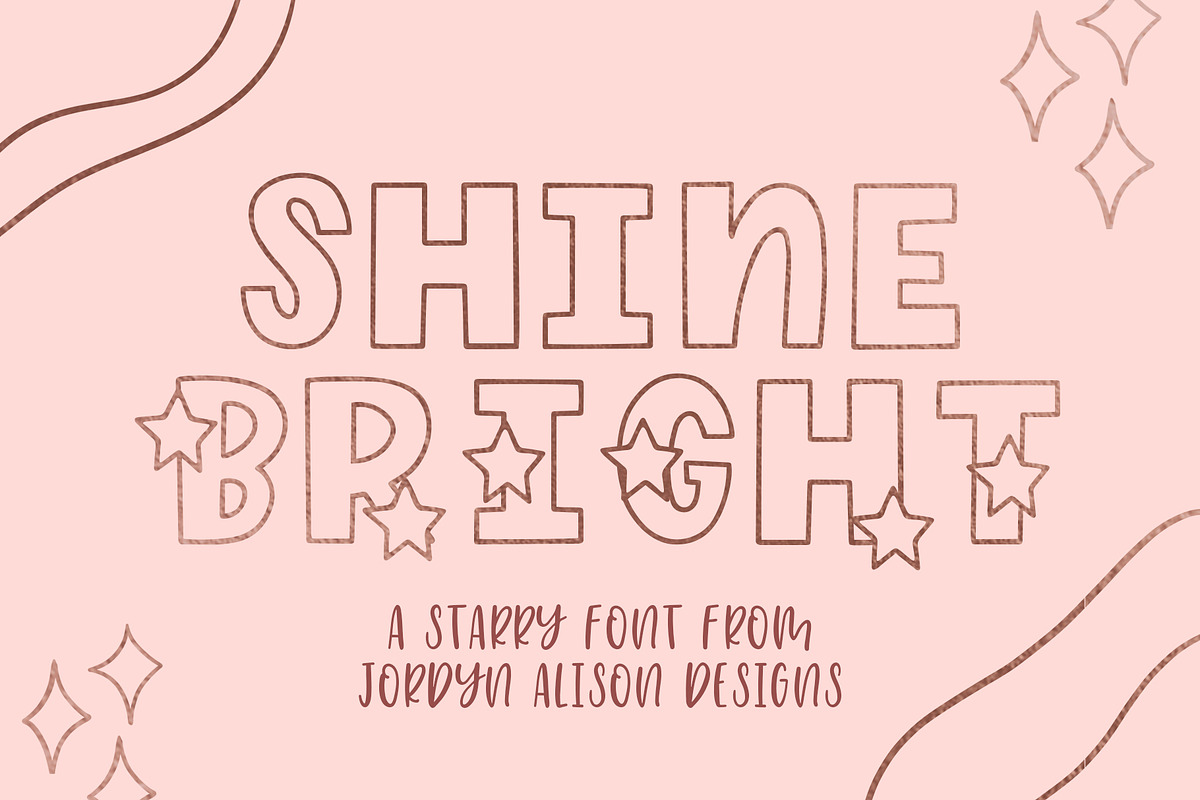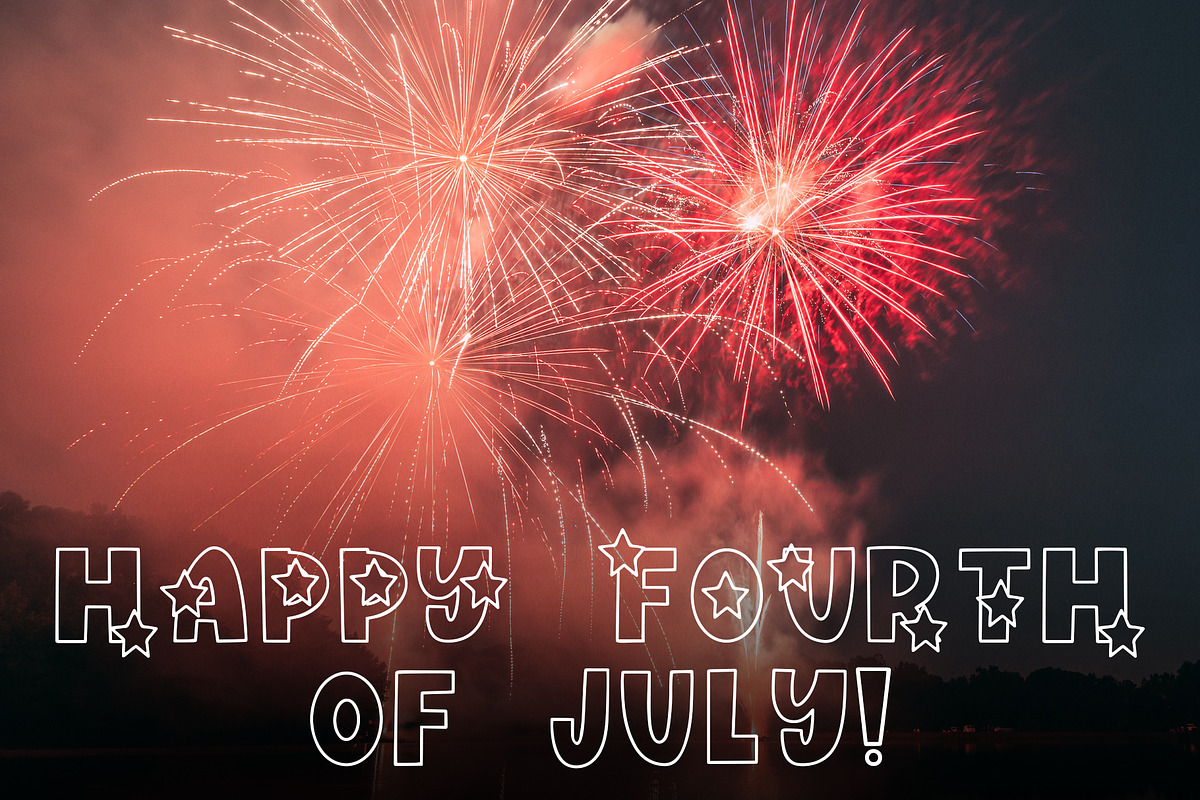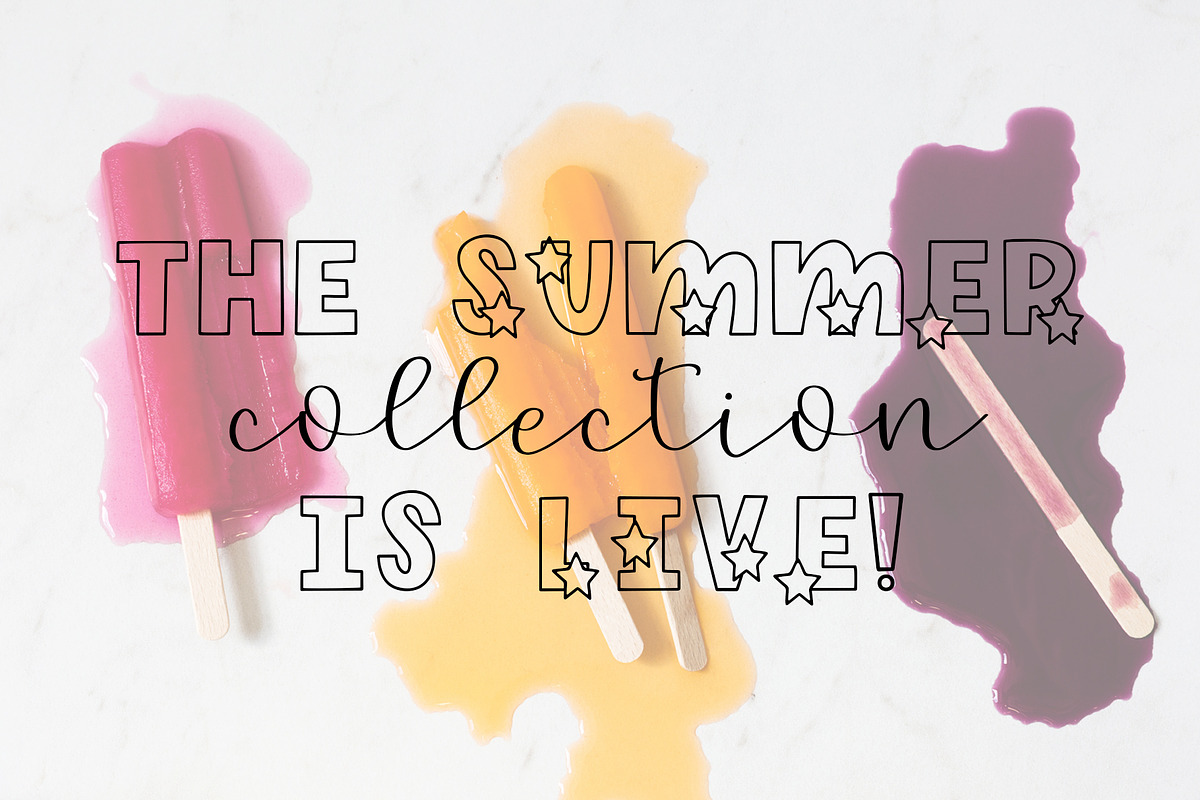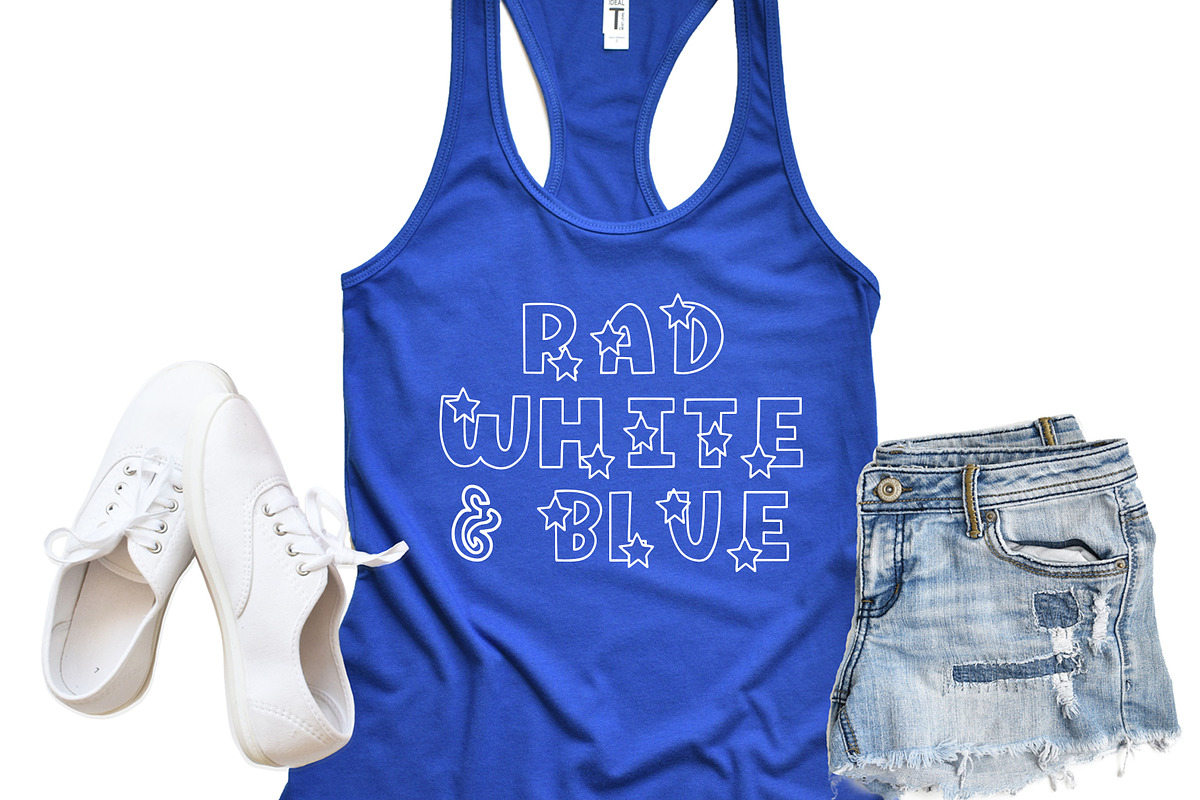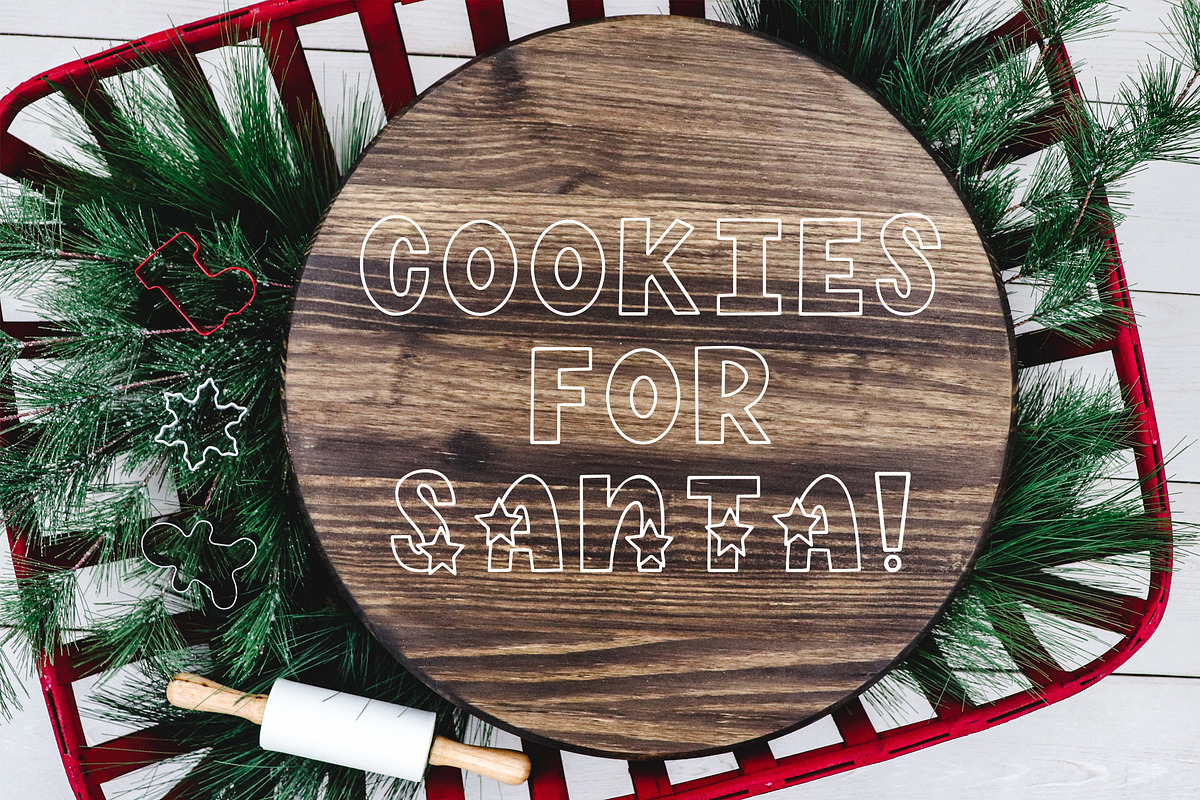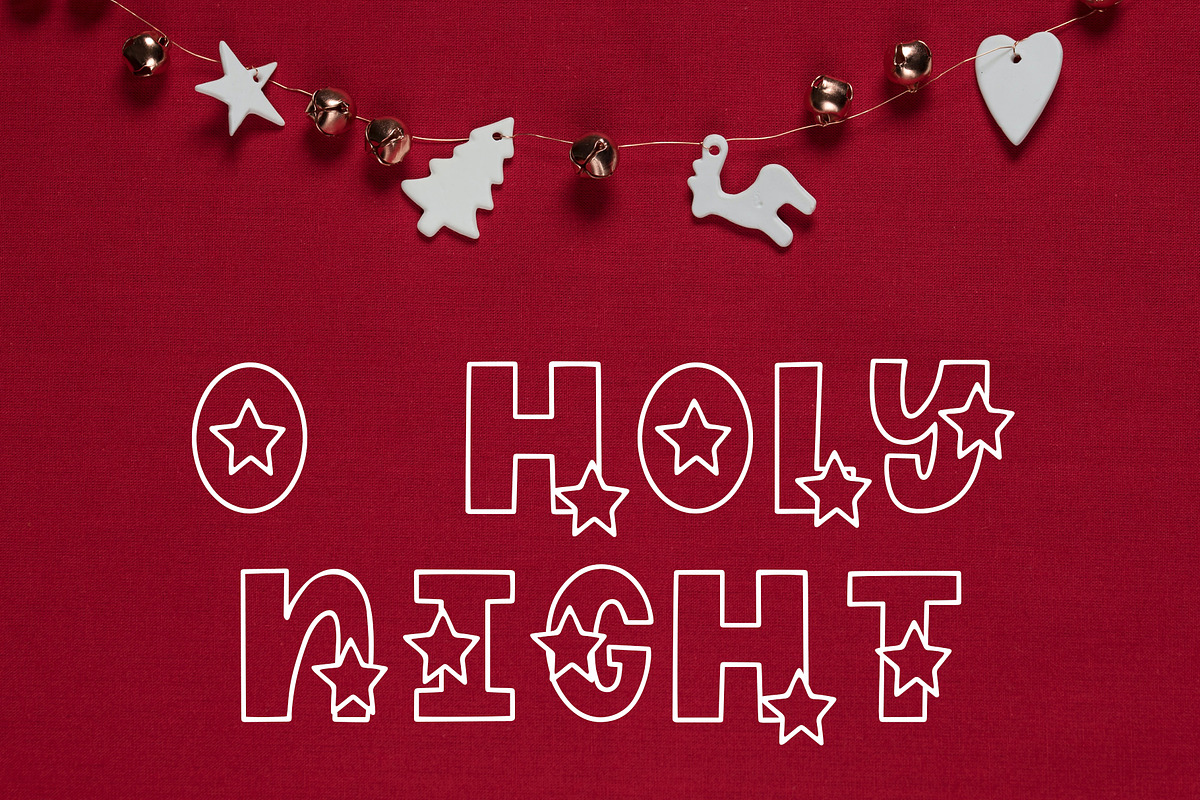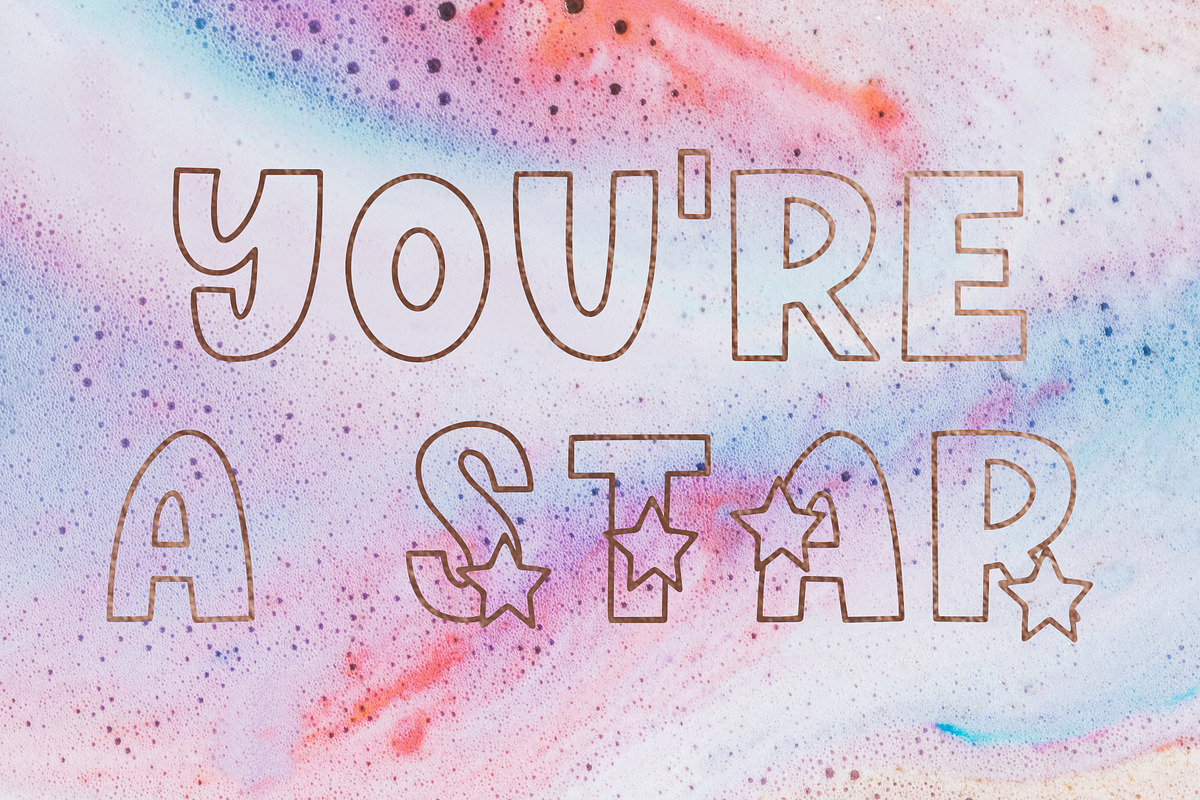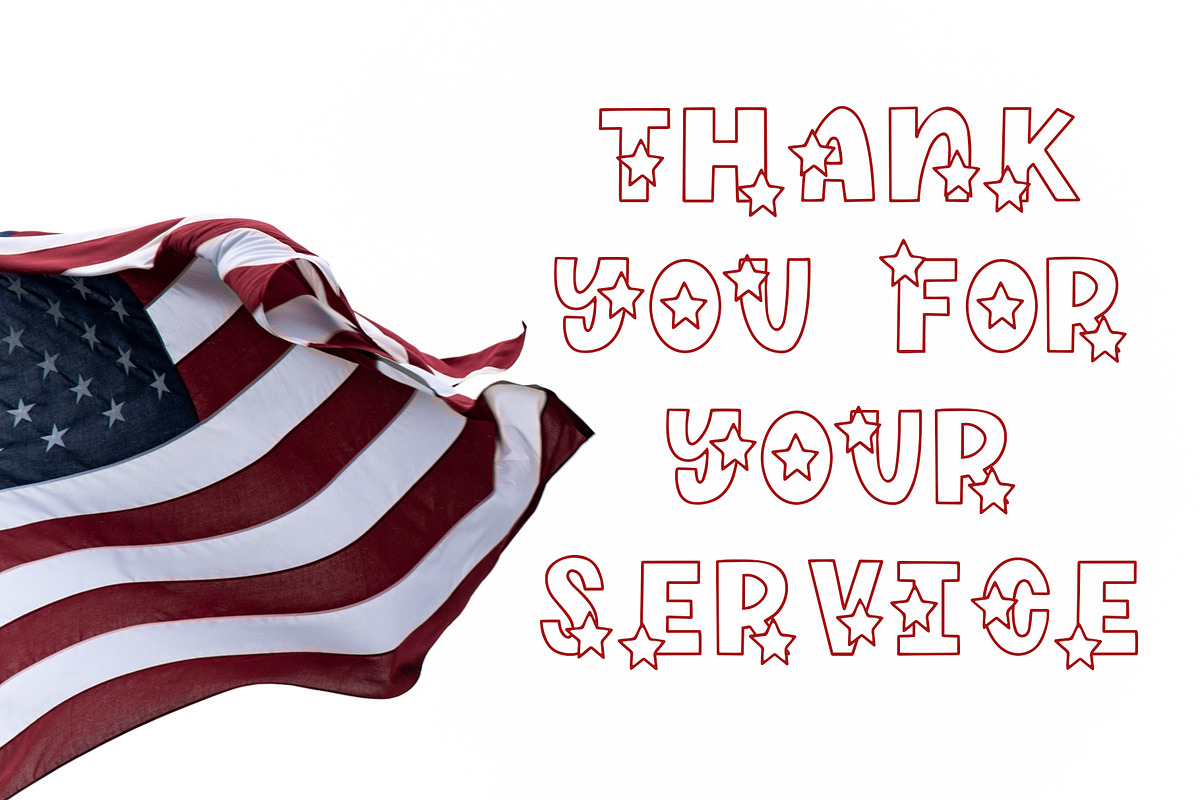
Shine Bright, Star Font
Introducing Shine Bright, a fun starry font by Jordyn Alison Designs!
Shine Bright font features:
Stars in the capital letters
Plain outlines for the lowercase letters
Numbers and limited punctuaion
Shine Bright, Star Font by Jordyn Alison Designs fits naturally into Branding, posters, packaging, typography.